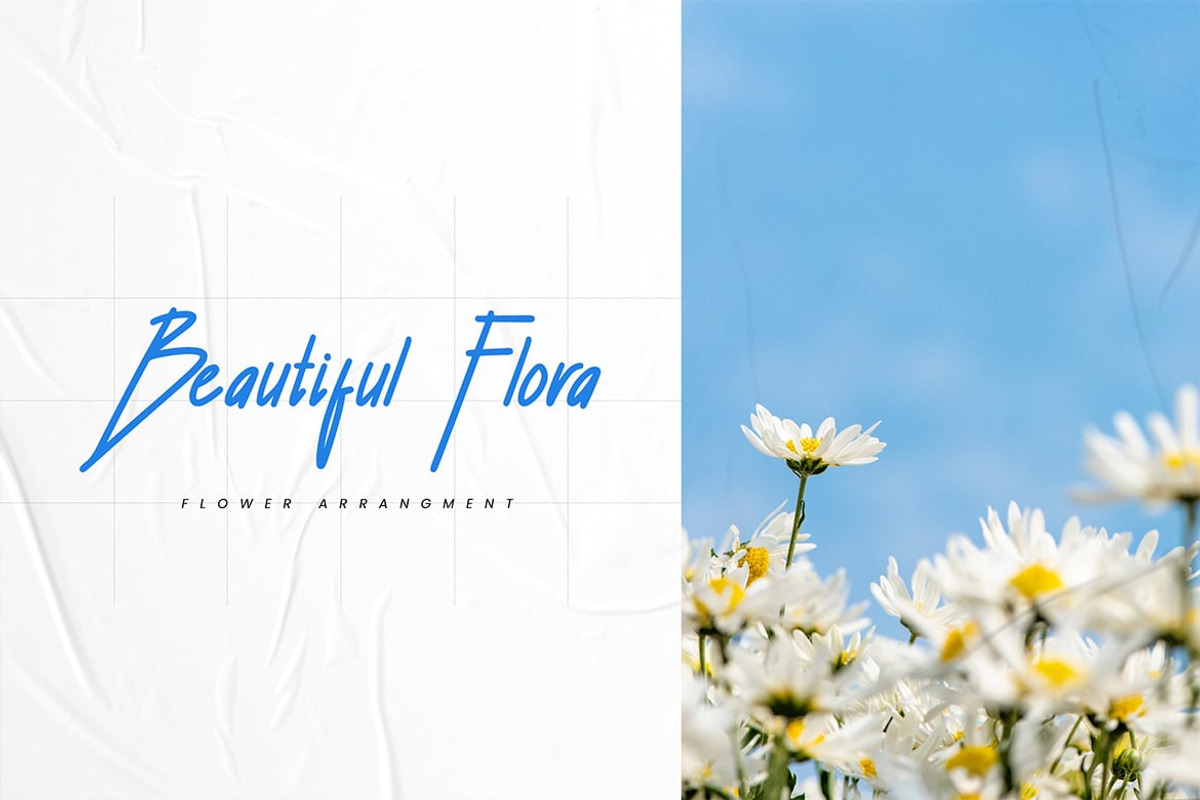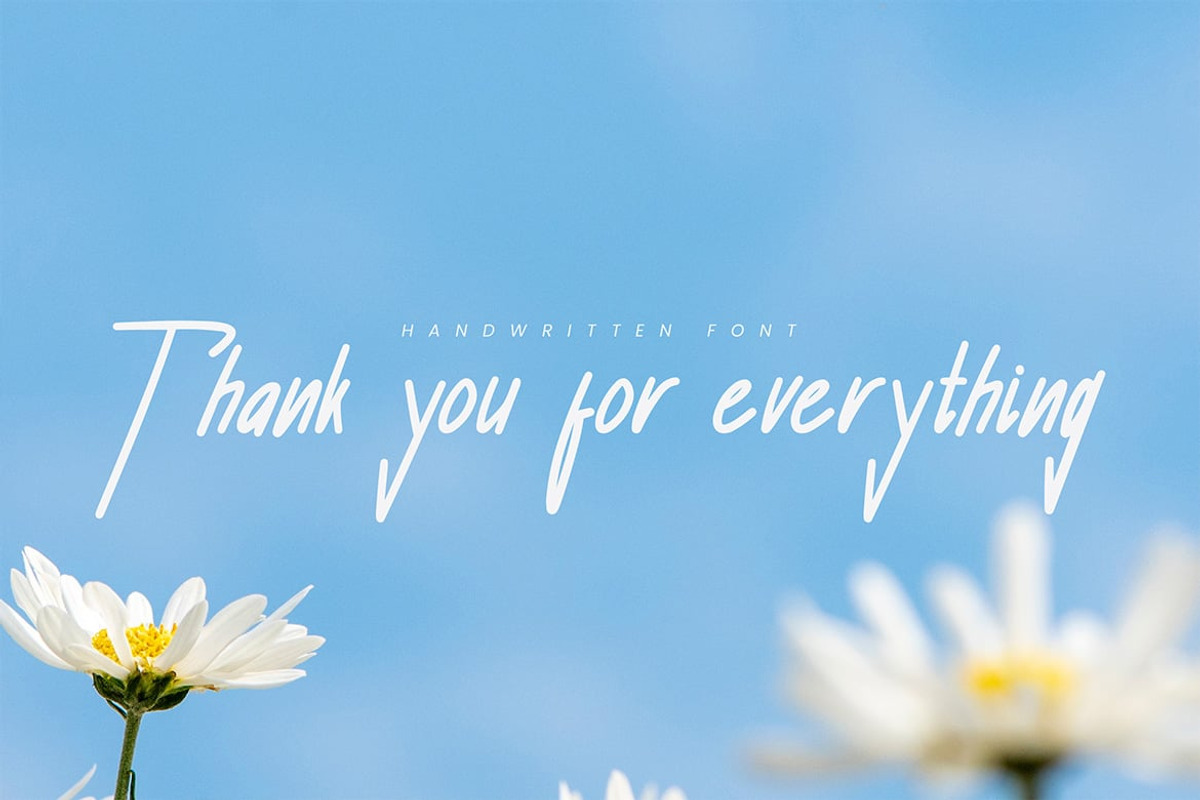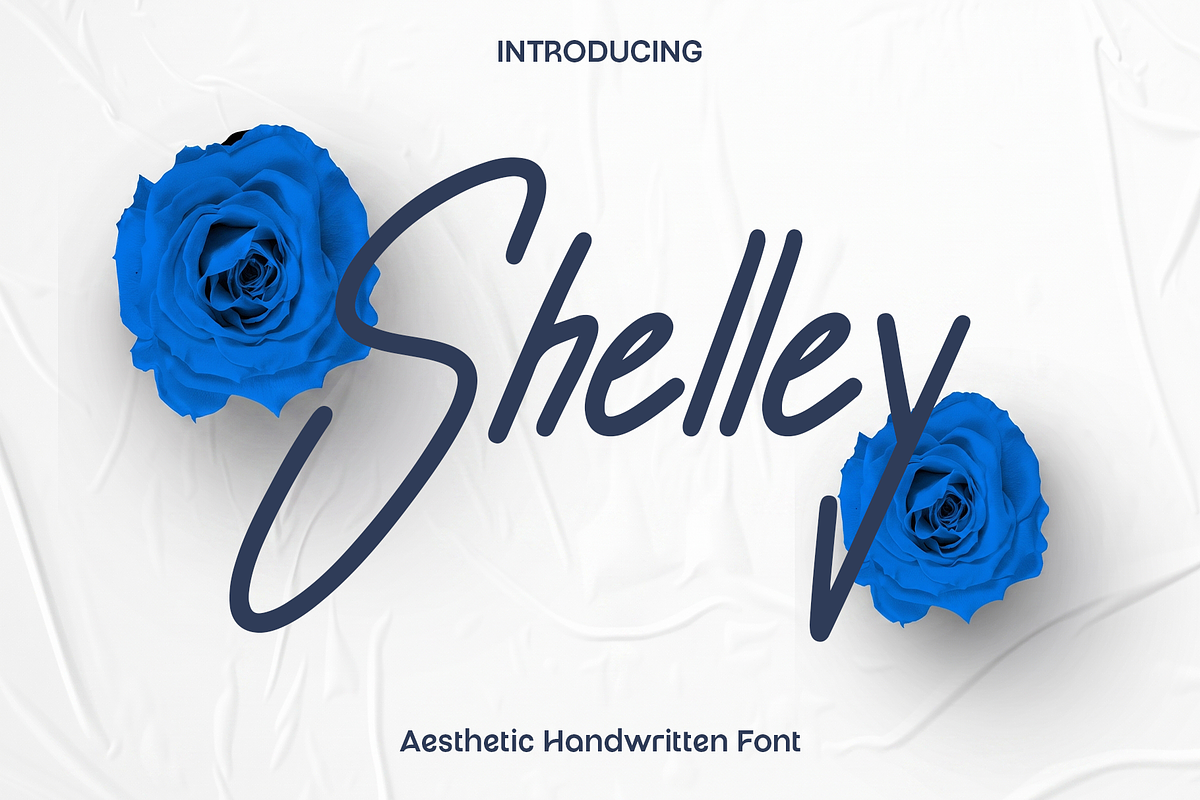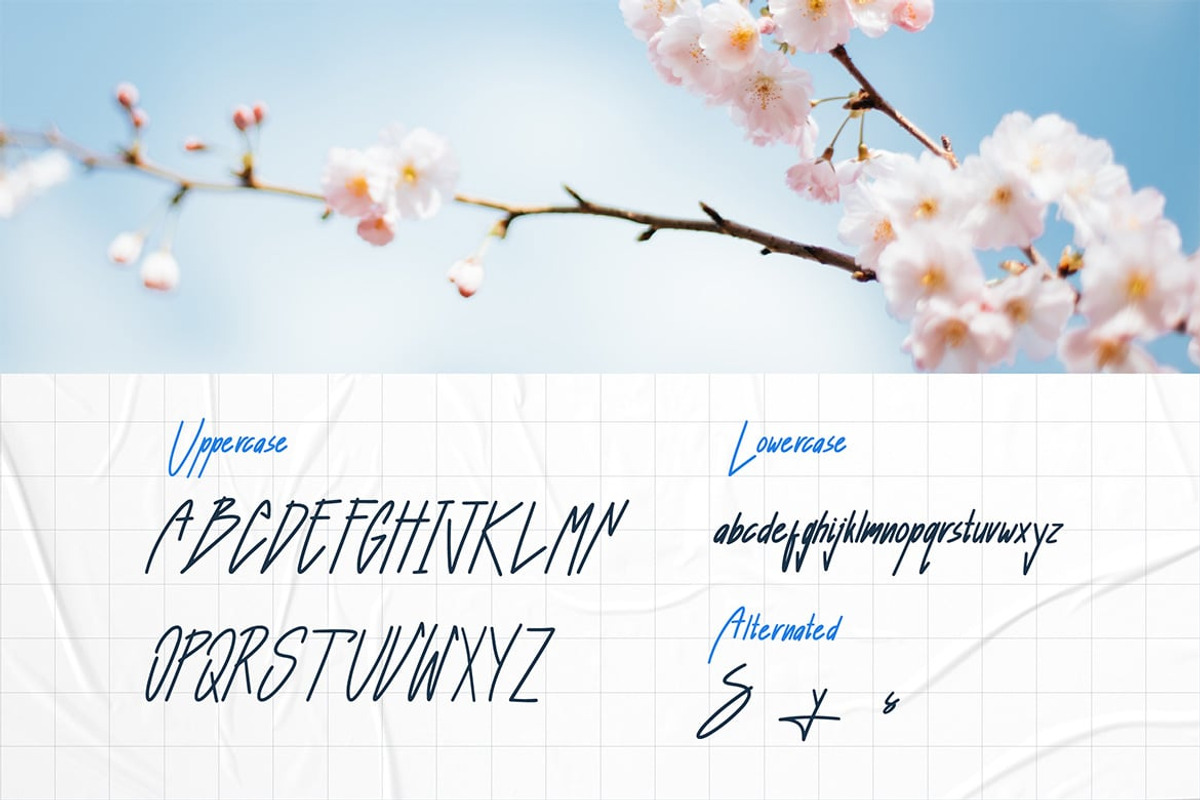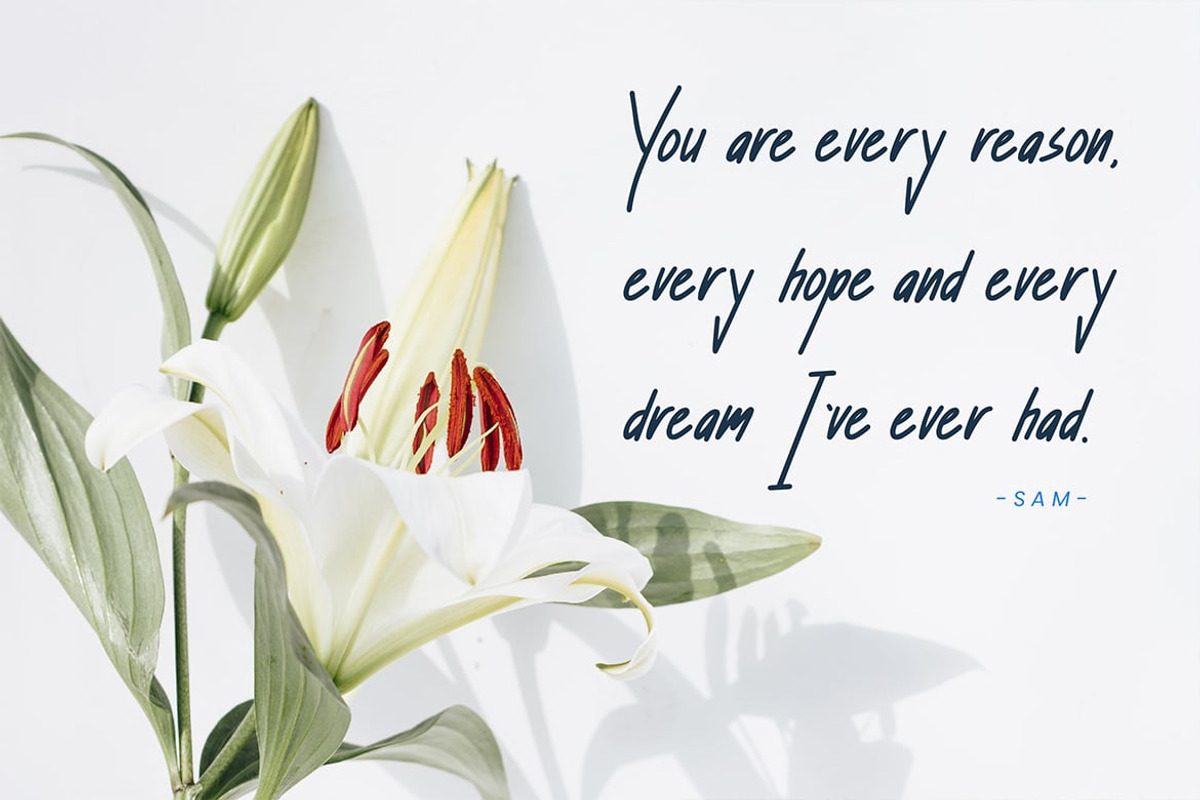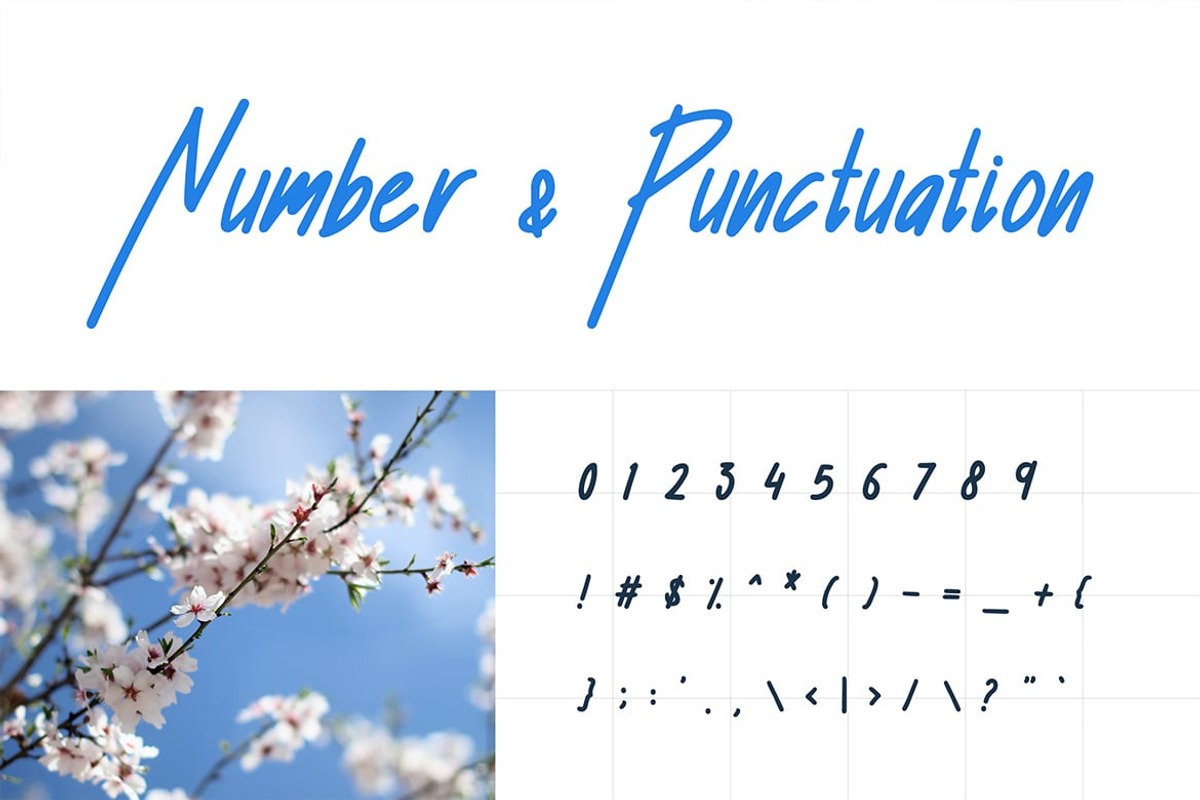
Shelley - Elegant Handwritten Script
Shelley is a beautifully crafted handwritten script font designed to bring elegance, warmth, and personal charm into your creative projects. Inspired by natural handwriting and modern calligraphy, Shelley features flowing strokes and distinctive letterforms that create an authentic and graceful visual style. Every character is carefully designed to feel smooth, stylish, and expressive, making your typography look personal and sophisticated.
Perfect for branding projects, logos, wedding invitations, social media graphics, advertisements, product packaging, labels, photography watermarks, stationery, and creative editorials, Shelley adds a refined handwritten touch that instantly elevates your designs. Its versatile style allows it to work beautifully across both modern and classic concepts, creating visuals that feel artistic and memorable.
Shelley was created for designers who want typography filled with personality and elegance. The smooth flow between letters gives every word a natural handwritten appearance while maintaining excellent readability across both print and digital applications. Whether used for romantic wedding designs or stylish branding materials, Shelley creates a warm and inviting atmosphere that connects beautifully with audiences.
Its handcrafted aesthetic makes Shelley an excellent choice for projects that require authenticity, creativity, and sophistication. From delicate logos to expressive typography layouts, this font transforms ordinary text into elegant handwritten art.
Shelley Font Features:
• Elegant handwritten script style
• Distinctive flowing letterforms
• Uppercase and lowercase characters
• Numerals and punctuation
• Smooth and stylish typography appearance
• Creative and versatile handwritten aesthetic